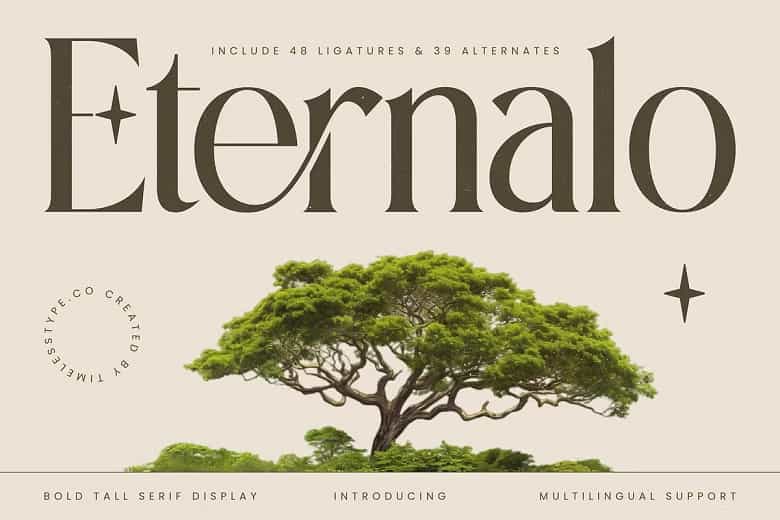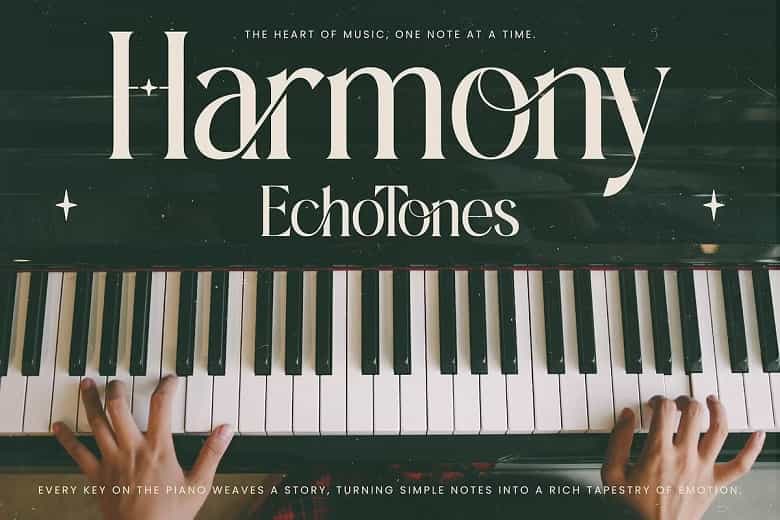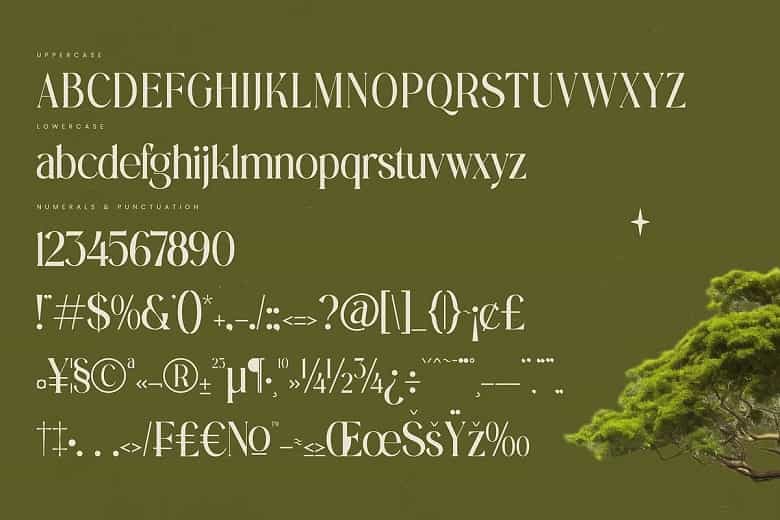
Eternalo is an elegant serif font. It is suitable for any projects such as: logos, branding projects, homeware designs, product packaging, mugs, quotes, posters, shopping bags, t-shirts, book covers, name card, invitation cards, greeting cards, label, photography, special events, and all your other luxury and beautiful projects that need a luxury serif touch.